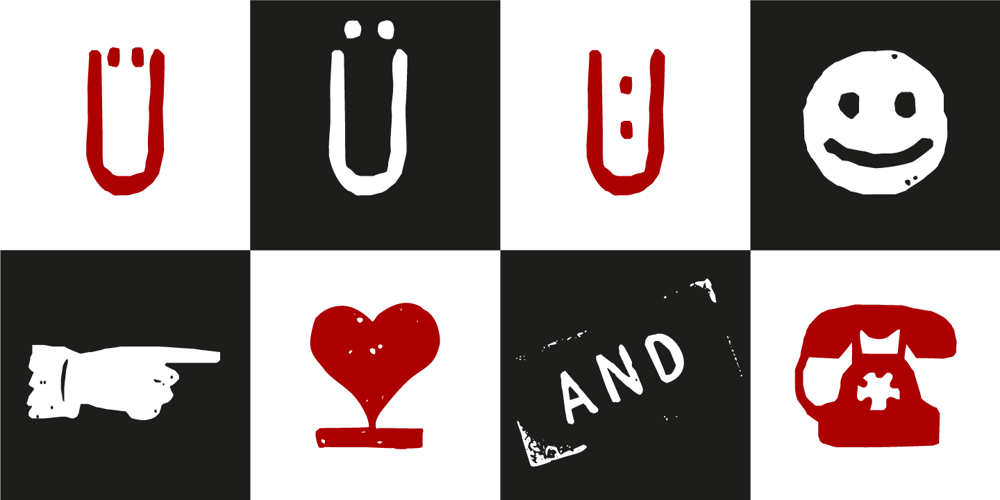
Hand Stamp Gothic Rough
Hand Stamp Gothic Rough Font Family was designed by Manuel Viergutz and published by TypoGraphicDesign. Hand Stamp Gothic Rough contains 2 styles and family package options. “Hand Stamp Gothic Rough” is based on real vintage rubber stamp letters from Germany. A classic american gothic face mixed with a modern condensed sans serif type. Rough & dirty with a authen­tic hand stamped look for a warm analogue vintage charm. It star­ted ana­lo­gous with only a few rubber stamps and finally it was digi­tal 776 gly­phs. With 4 × A–Z, 4 × 0–9, 4 × a–z and many other alternative glyphs like @. Plus modern OpenType Features like contextual alternates (automatic generated loop for letter variation). The different variations from the dynamic pressure by hand inten­ded to show the hand-made nature and crea­tes a live­li­ness in the display font. The font has 80 decorative extras in the form of symbols & dingbats like arrows, hearts, smileys, stars, further numbers, lines & shapes. A range of figure set options like oldstyle figures, lining figures, superiors & inferiors. Additionally stan­dard liga­tures, deco­ra­tive liga­tures (type the word “show” for ☛ and “love” for ❤ … ), Ver­sal Eszett (German Capital Sharp S) and many emojis & symbols. Example of use It’s your turn … for example everywhere where it makes sense. The hand stamped font would look good at head­lines. Advertising (big headlines), Corporate Design (type for logos & branding), Edi­to­rial Design (maga­zine or fan­zine headlines), Product Design (typographical packaging) or Web­de­sign (head­line web­font for your web­site), flyer, pos­ter, music covers or web banner … How To Use – awesome magic OpenType-Features in your layout application: ■ In Adobe Photoshop and Adobe InDesign, font feature controls are within the Character panel sub-menu → OpenType → Discretionary Ligatures … Checked features are applied/on. Unchecked features are off. ■ In Adobe Illustrator, font feature controls are within the OpenType panel. Icons at the bottom of the panel are button controls. Darker ‘pressed’ buttons are applied/on. ■ Additionally in Adobe InDesign and Adobe Illustrator, alternate glyphs can manually be inserted into a text frame by using the Glyph panel. The panel can be opened by selecting Window from the menu bar → Type → Glyphs. Or use sign-overview of your operating system. For a overview of OpenType-Feature compatibility for common applications, follow the myfonts-help http://www.myfonts.com/help/#looks-different ■ It may process a little bit slowly in some applications, because the font has a lot of lovely rough details (anchor points). Tech­ni­cal Spe­ci­fi­ca­ti­ons ■ Font Name Hand Stamp Gothic Rough ■ Font Weights Regu­lar & Dirty (Bold) ■ Font Cate­gory Dis­play for head­line size ■ Font For­mat .otf (Open­Type Font for Mac + Win) ■ Glyph Set 776 glyphs ■ Lan­guage Sup­port Basic Latin/English let­ters, Cen­tral Europe, West European diacritics, Turkish, Bal­tic, Roma­nian, OpenType Features, Dingbats & Symbols ■ Spe­cials Alter­na­tive let­ters, sty­listic sets, automatic con­text­ual alter­nates via Open­Type Fea­ture (4× different versions of A–Z & 0–9 + a–z), Euro, kerning pairs, stan­dard & deco­ra­tive liga­tures, Ver­sal Eszett (German Capital Sharp S), 80 extras like Dingbats & Symbols, arrows, hearts, emojis/smileys, stars, further numbers, lines & shapes. ■ Design Date 2016 ■ Type Desi­gner Manuel Vier­gutz ■ License Desktop license, Web license, App license, eBook license, Ser­ver license